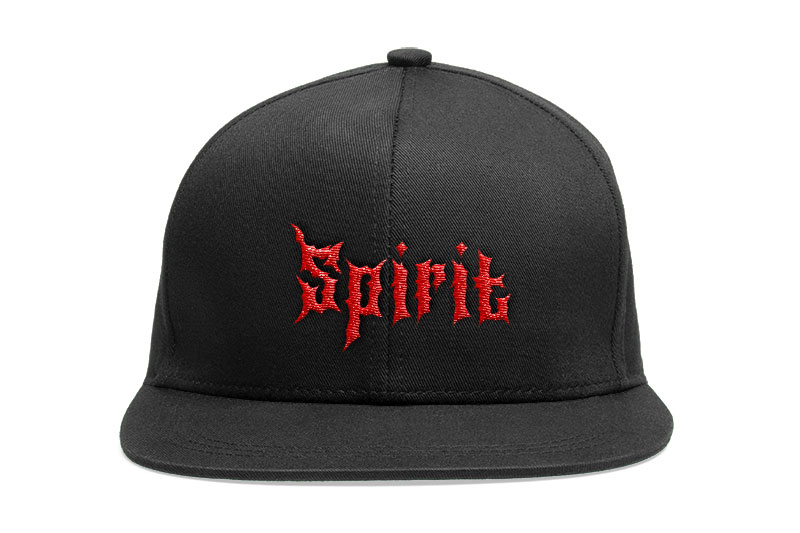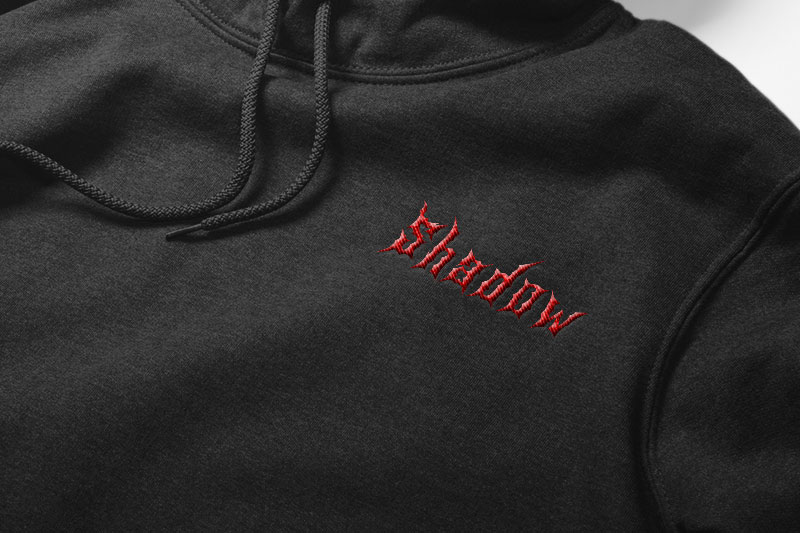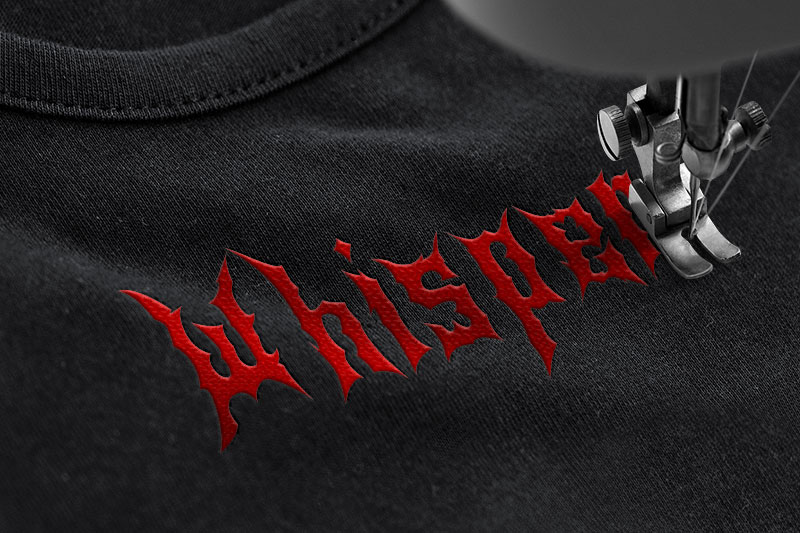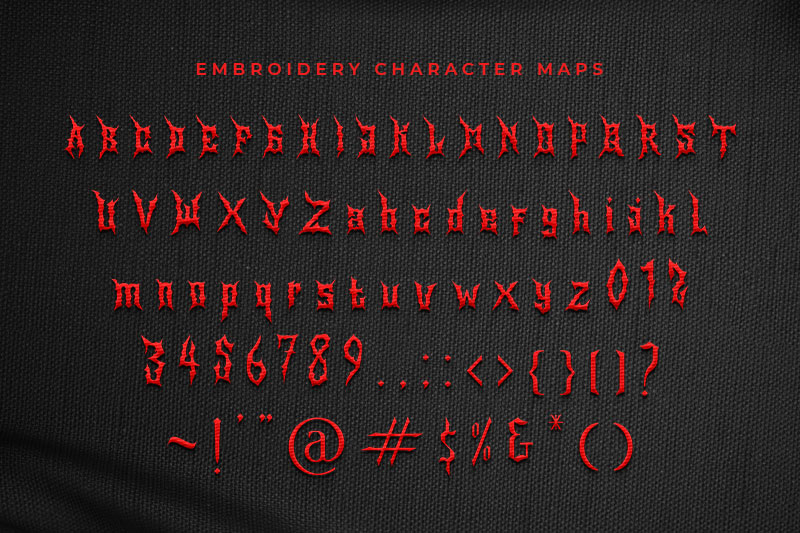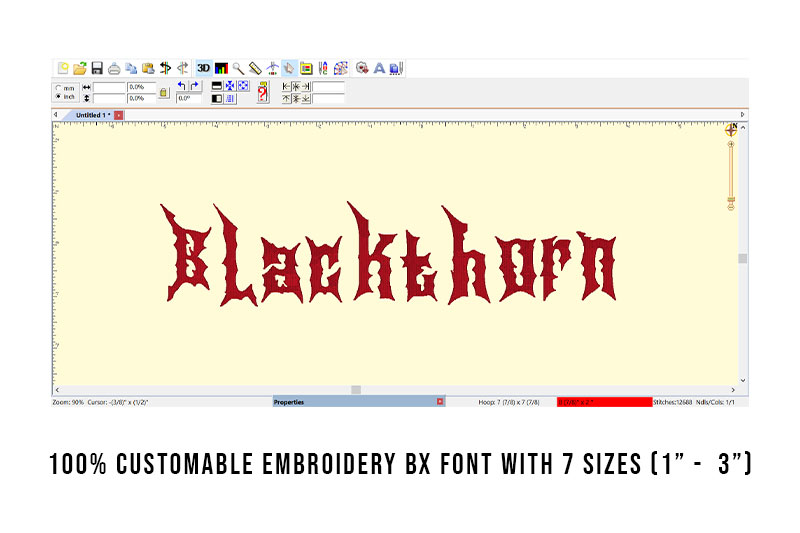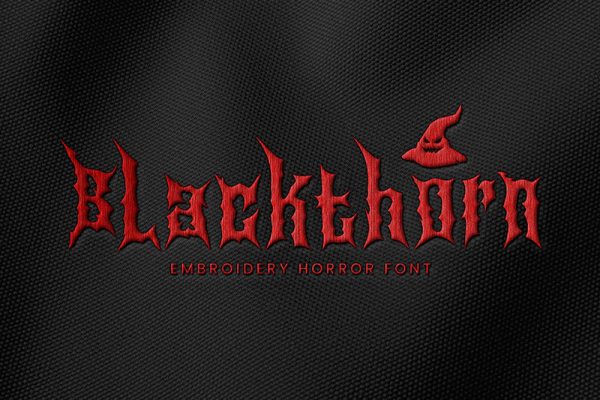
Blackthorn Embroidery Font comes as a part of the display font. It has unique and interesting characteristics. We can see how this font is very thick with horror and a scary atmosphere because of the drops of blood. Blackthorn Embroidery Font is quite clearly legible. However, it will be difficult to read if it is a small font size and viewed from a distance. You can use this font for embroidery and online font.
Font Kong provides Blackthorn Embroidery Font is the best font used to enliven a themed party horror. If you're a creative person and like to get busy with party preparations, you can use this digital font for making posters, invitation cards, decorations, and all kinds of banners.
In addition to party purposes, this font can be combined with several items such as mystery book covers and horror movie posters. If you like gothic typography stylized and fiction, you should choose a horror font to add to your collection. This modern blackletter typeface is also perfect for writers looking for a dark-themed font to use in their horror novels or movie titles.
This font will amplify the horror vibes on their book covers and videos. You can also use this font for horror movie intros or trailers because the unique font design will grab the attention of horror movie audiences. By reinforcing the right visuals, like this font design, you can help build their curiosity and interest. The match described is certainly present because Blackthorn Embroidery Font shows a very strong spooky impression.